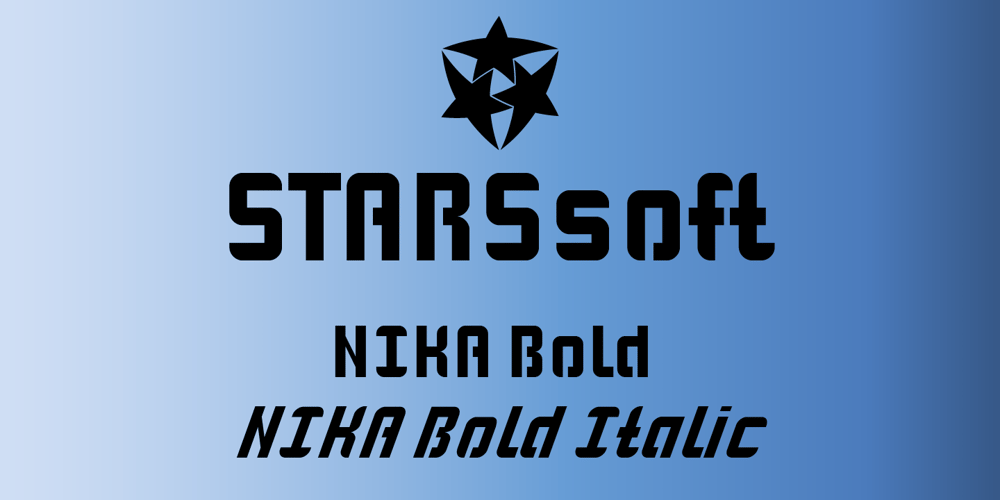
STARSsoft Nika Font Family was designed by Viktor Kalgin and published by STARSsoft. STARSsoft Nika contains 2 styles and family package options. Currently, the STARSsoft NIKA font family is represented by two fonts – Bold & Bold Italic. The letters and numbers in the font are shown in such a way that there are no holes in the letters and the entire outline of the font consists of one closed line. The font has both a standard Latin set and an extended one. The font also has Cyrillic support. In addition to the Russian Cyrillic alphabet, the font has support for Ukrainian and Kazakh Cyrillic. In addition to standard character sets, the font has many additional letters with diacritics.